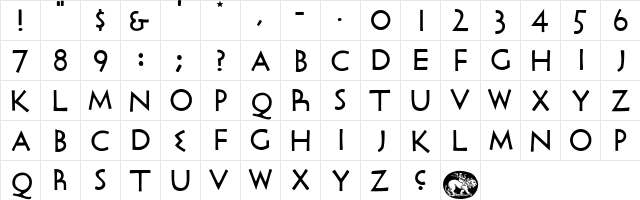
Ovid Regular
Design Context for Ovid Typeface
Ovid takes a measured approach to typography — its balanced proportions and neutral character make it a reliable workhorse for both digital and print work.